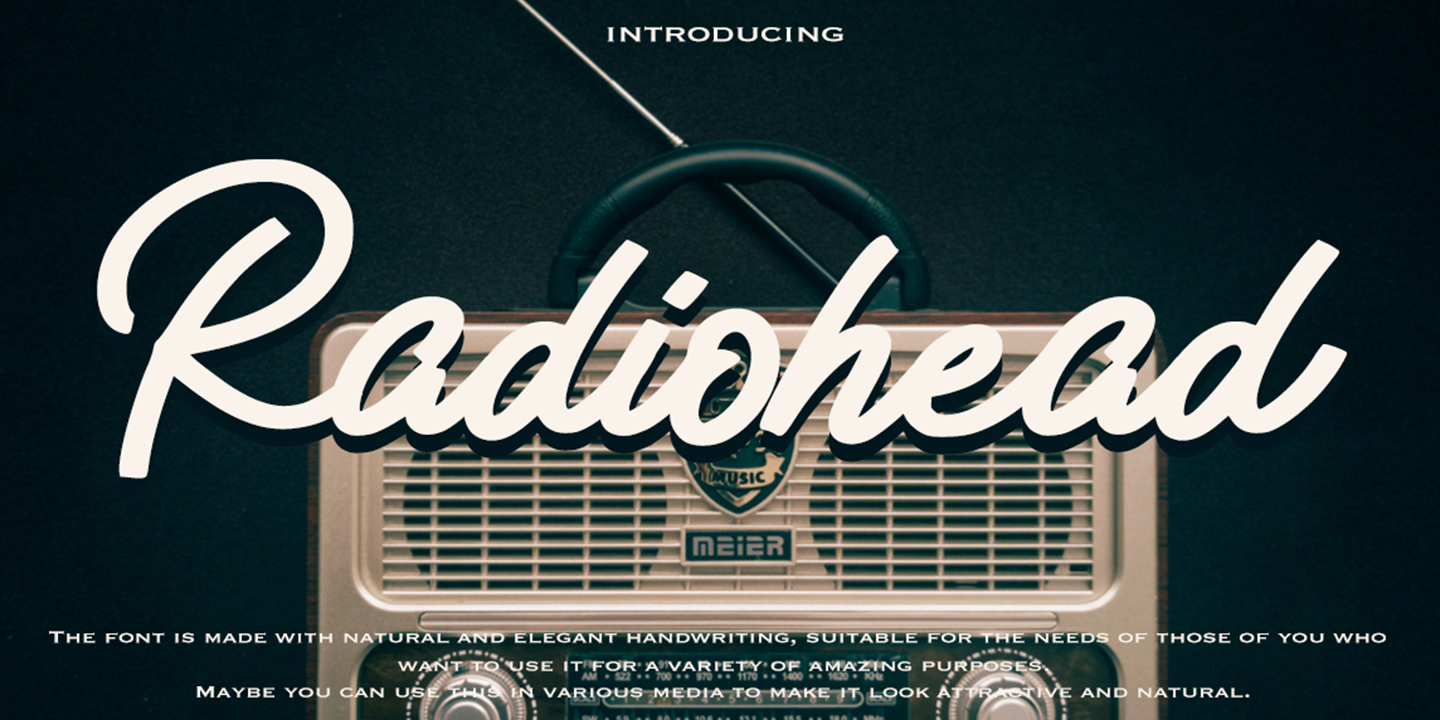
Radiohead Font is perfect for alternative music band branding, experimental album artwork, indie record label identity, underground music festivals, avant-garde art exhibitions, progressive magazine layouts, creative agency materials, contemporary art installations, and cutting-edge digital campaigns. This innovative typeface brings experimental creativity and artistic rebellion to both digital and print design applications.
Radiohead Font is exciting because it captures the essence of experimental innovation and artistic boundary-pushing, making it an exceptional choice for designers who want to convey creative nonconformity with authentic alternative expression. Its unconventional letterforms and progressive character provide the perfect combination of artistic rebellion and functional communication, ensuring your projects communicate experimental excellence, creative independence, and innovative thinking that resonates with audiences seeking authentic artistic expression and alternative culture.
The Radiohead Font family includes experimental weight variations and artistic elements, featuring regular and bold weights with alternative character forms, progressive ligatures, and avant-garde decorative elements. Each style maintains consistent experimental aesthetics while offering flexibility for different creative applications, allowing designers to build innovative visual systems that reflect artistic independence and progressive design principles.
Whether you're designing for creative industries, alternative brands, or experimental projects, Radiohead Font Free Download delivers authentic artistic appeal and progressive sophistication that connects with audiences seeking genuine creative innovation. This premium typeface offers designers the experimental edge and artistic authenticity needed to create designs that communicate alternative culture, creative rebellion, and progressive excellence effectively. The font's innovative character makes it perfect for artistic branding, experimental campaigns, and progressive applications where creative authenticity is essential. Download Radiohead Font today and transform your creative projects with genuine experimental sophistication and progressive typography excellence that defines alternative design.